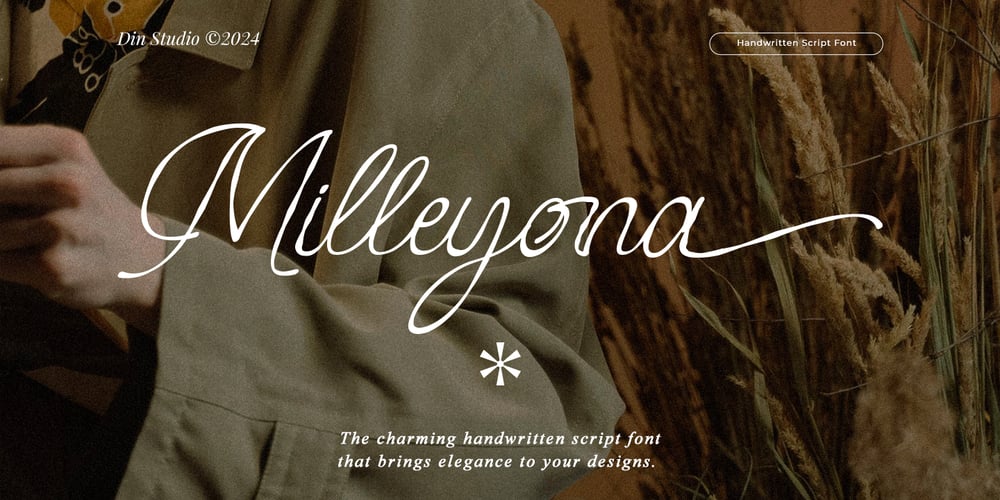
Milleyona Font Family was designed by Donis Miftahudin and published by Din Studio. Milleyona contains 1 styles and family package options. Milleyona is a delicate and elegant handwritten font that exudes sophistication with its thin weight. The connected letters flow seamlessly, creating a smooth and continuous script. With fairly consistent letter proportions, Milleyona offers a harmonious and balanced appearance. In addition, enjoy the features here.Features: Ligatures Stylistic Sets Multilingual Supports PUA Encoded Numerals and Punctuations Milleyona fits in logos, posters, flyers, branding materials, print media, editorial layouts, and many more designs. Find out more ways to use this font by taking a look at the font preview.Thanks for purchasing our fonts. Hopefully, you have a great time using our font. Feel free to contact us anytime for further information or when you have trouble with the font. Thanks a lot and happy designing.